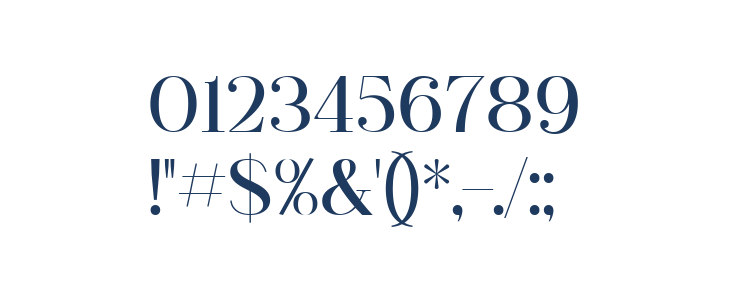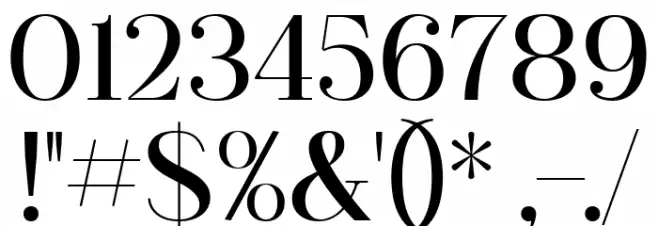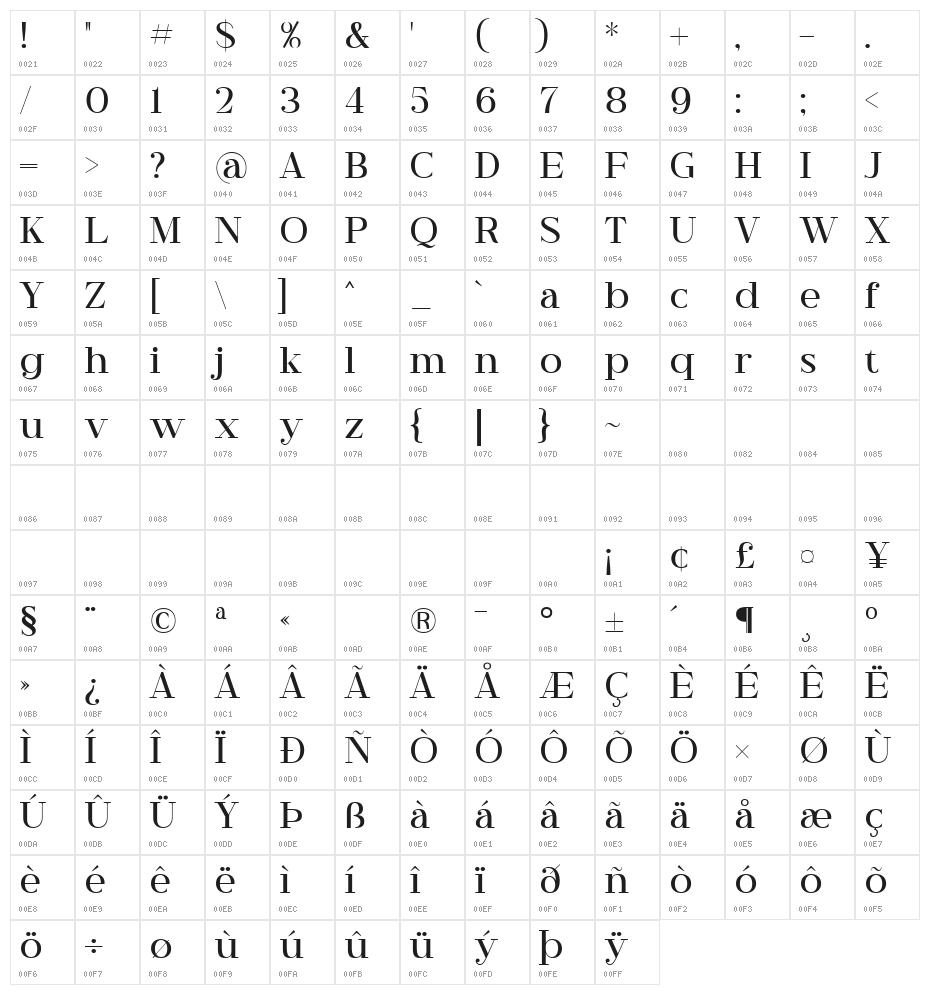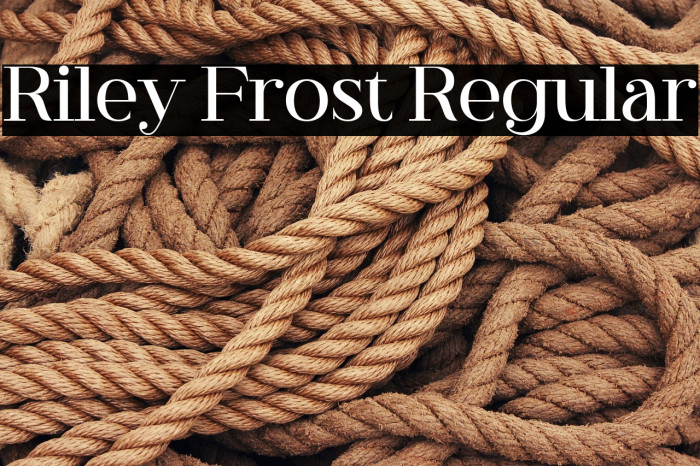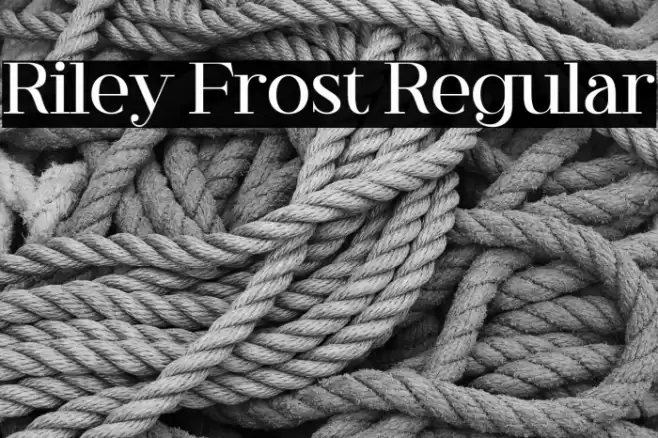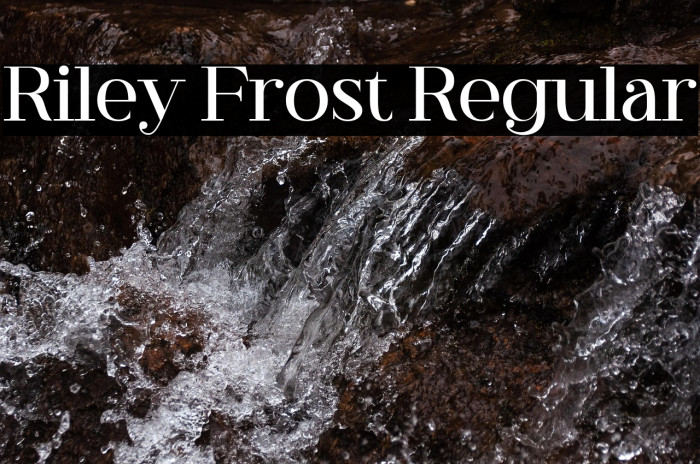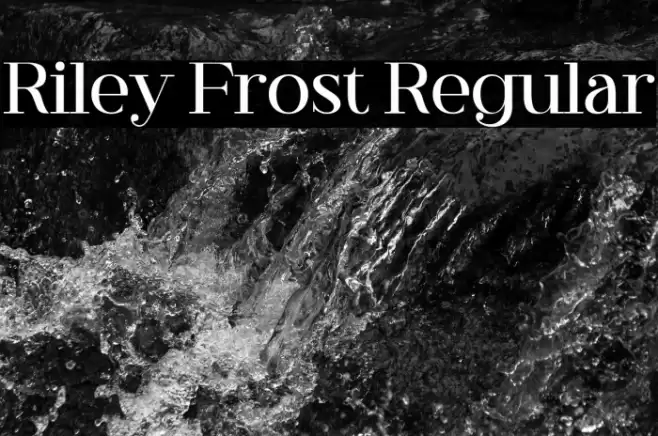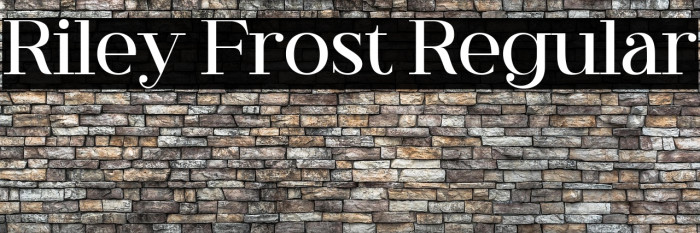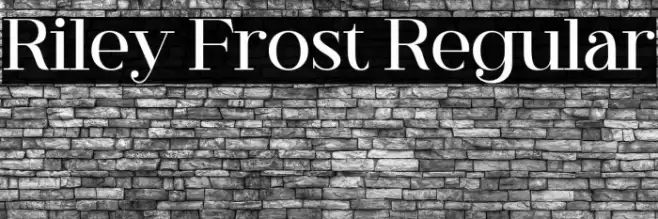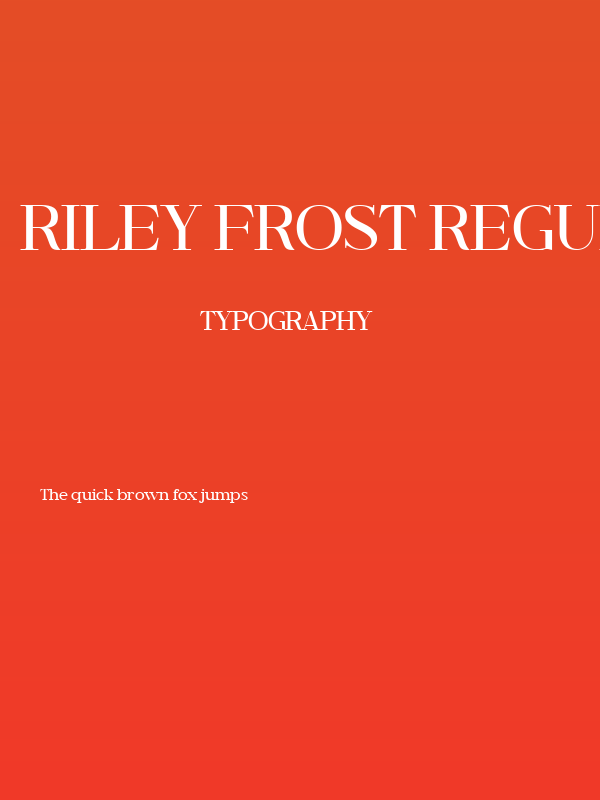
Riley Frost Regular Font
Riley Frost Regular Description
This font features a classic serif style with elegant and refined strokes. The uppercase letters are bold and commanding, while the lowercase letters maintain a graceful and sophisticated appearance. The numerals are well-proportioned, offering a harmonious balance with the alphabet. Special characters are designed with a consistent style, ensuring a cohesive look across all glyphs. The font exhibits high contrast between thick and thin strokes, adding to its timeless and authoritative feel. It is well-suited for projects that require a touch of elegance and professionalism.
| Proposed Projects | Ideal for editorial design, book covers, formal invitations, and branding materials. |